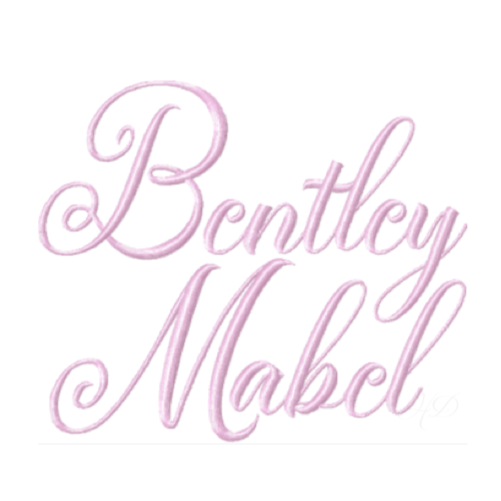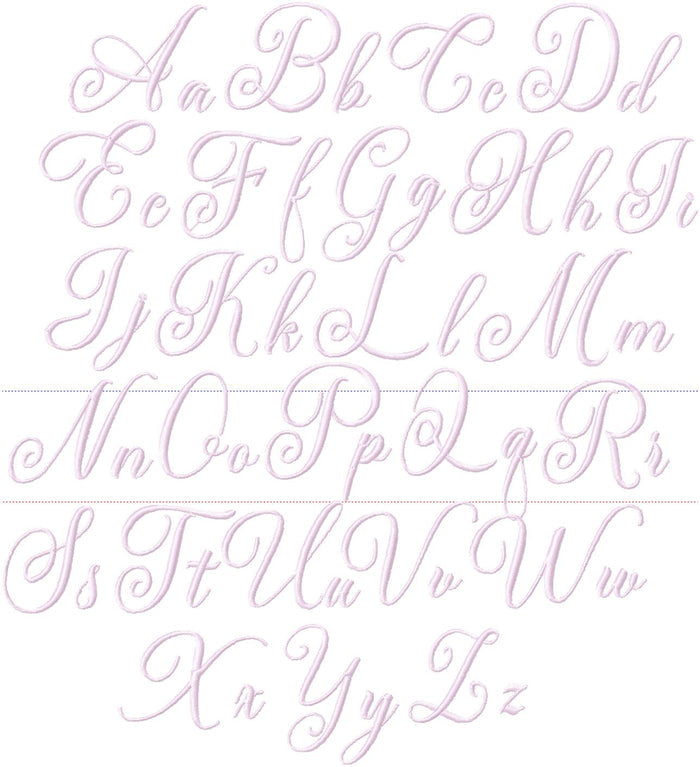
Bentley Mabel Script Embroidery Font 4x4
Elevate your crafting projects with the Bentley Mabel Script Embroidery Font 4x4 package! This versatile font package includes three sizes, each beautifully crafted with satin stitching, making it perfect for all your embroidery machine needs. The available sizes are 1.5", 2", and 3", ensuring that your designs fit beautifully in a 4x4 hoop or larger.